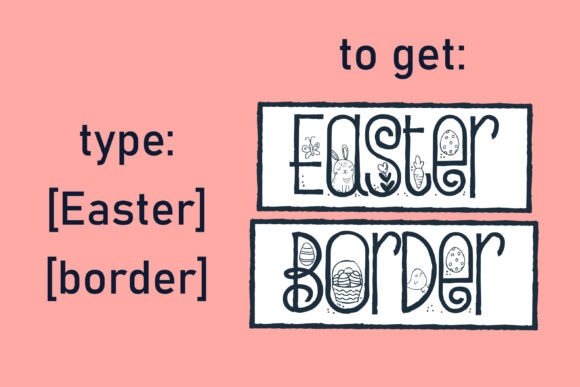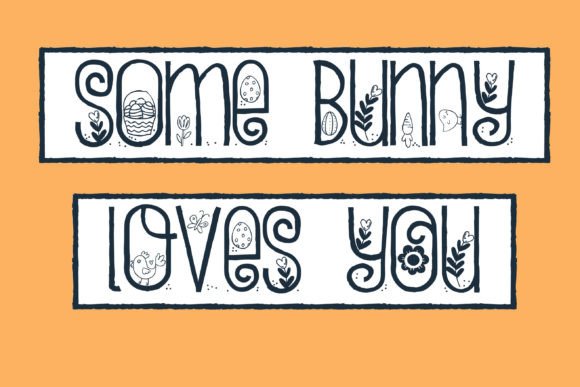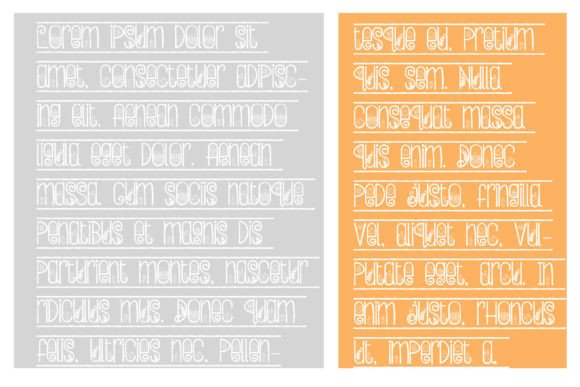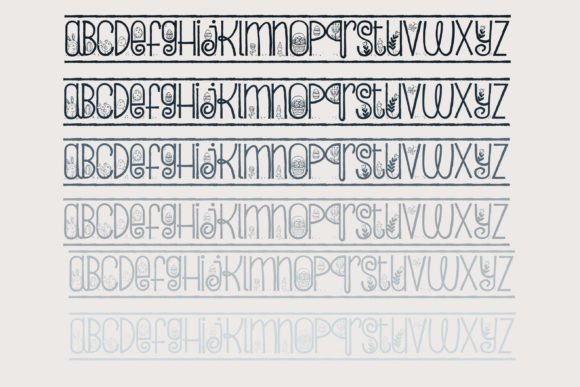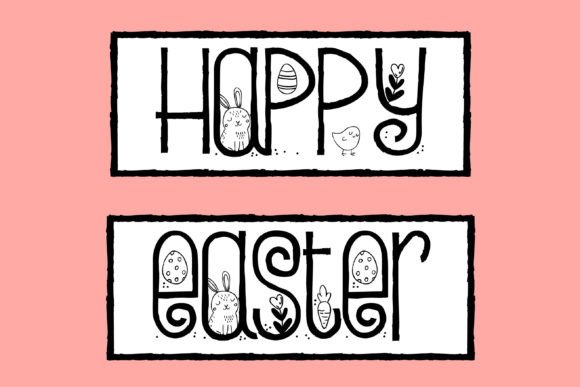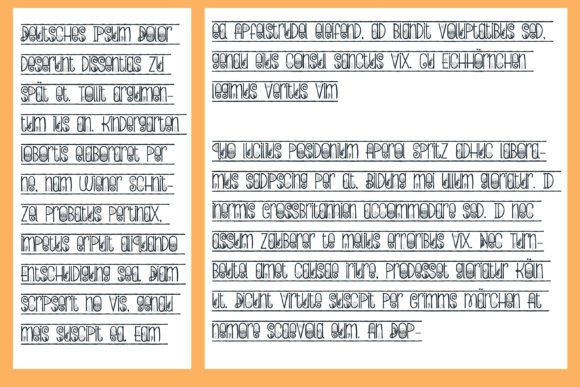
The Easter Border Font: A Playful and Charming Addition to Your Designs
A Personal Review of Easter Border
So, what makes Easter Border so special? Here are a few things I love about this font:
- ✨ Its childlike quality is perfect for playful and charming designs
- ✅ The letters have a unique and quirky feel that sets it apart from other fonts
- 🎉 It’s perfect for Easter-themed designs, but can also be used for other spring-inspired projects
- 👍 The font is highly legible, even at smaller sizes
Of course, no font is perfect, and Easter Border has a few small quirks:
- 🤔 Some letters may appear a bit distorted or irregular, which can be a bit jarring at first
- ⚠️ The font may not be suitable for more formal or professional designs, as it has a distinctly playful feel
The Story Behind Easter Border
Easter Border was designed by a team of creatives who wanted to create a font that captured the playful and whimsical spirit of Easter. Inspired by vintage Easter decorations and children’s book illustrations, they crafted a font that’s both fun and charming. The result is a font that’s perfect for Easter-themed designs, but can also be used for other spring-inspired projects.
| Font Name | Easter Border Font |
| Author | Illustration Ink |
| What type of designs is Easter Border best suited for? | Easter Border is perfect for playful and charming designs, such as Easter-themed projects, spring-inspired designs, and children’s book illustrations. |
| Does Easter Border support OpenType features? | Yes, Easter Border supports OpenType features, such as glyphs and stylistic alternates. You can access these features in design platforms that support OpenType, such as Adobe Photoshop and Illustrator. |